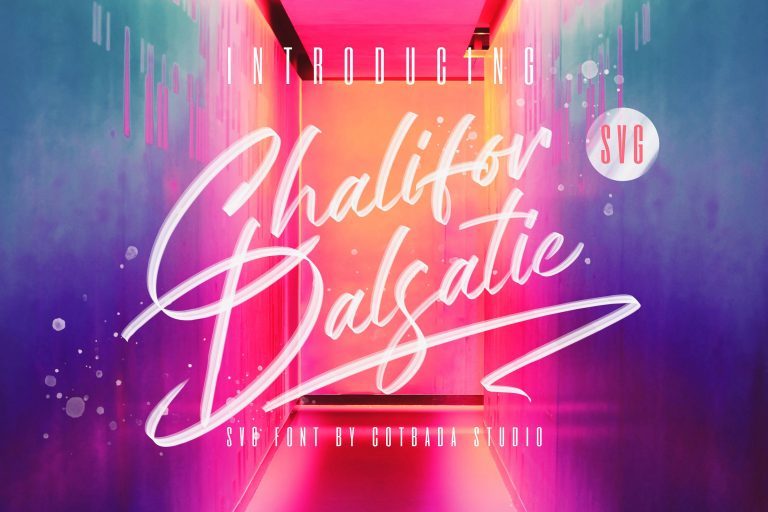
Chalifor Dalsatic Script Font
Start the day with a very impressive typeface, a very creative and beautiful typography, If you are looking for a brush type then this is it! Introducing Chalifor Dalsatic Font. Chalifor Dalsatic SVG FONT is a unique, cool and modern handwritten font. It’s hand look style makes it perfect for use in all your design projects be it logos, labels, packaging design, blog headlines, Poster. etc